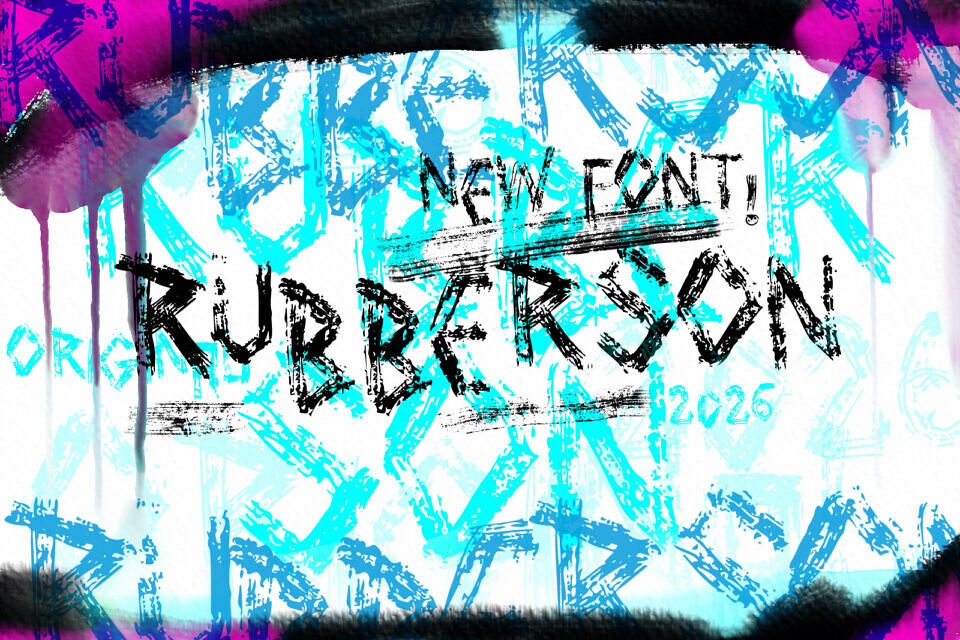
Embrace a bold, gritty aesthetic with Vtks Rubberson, a distressed display font by VTKS DESIGN. Featuring a raw, hand-painted texture with energetic brush strokes, this font captures an edgy, urban vibe perfect for streetwear branding, band merchandise, or striking posters. It includes 240 characters and 224 glyphs, offering a complete set of uppercase letters, numbers, and basic punctuation.